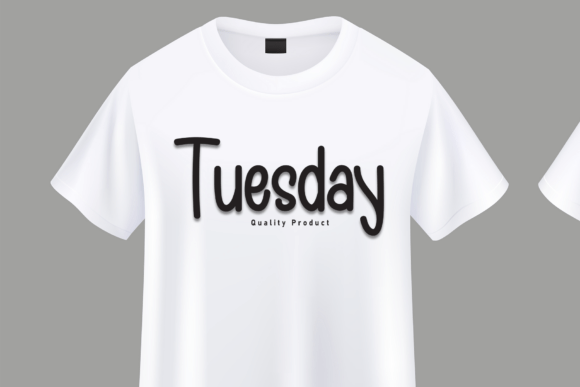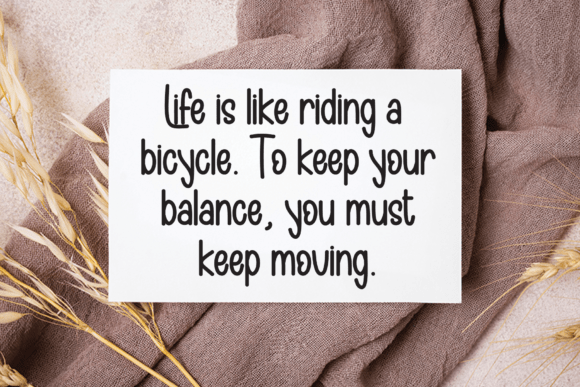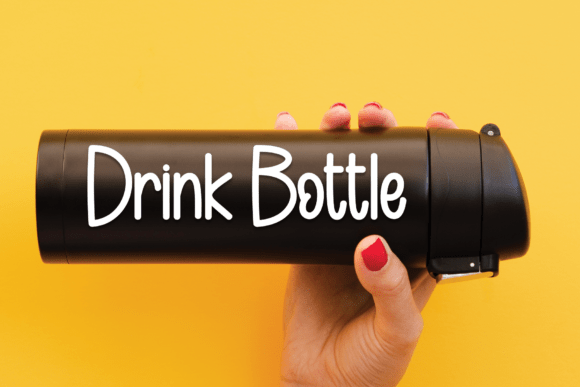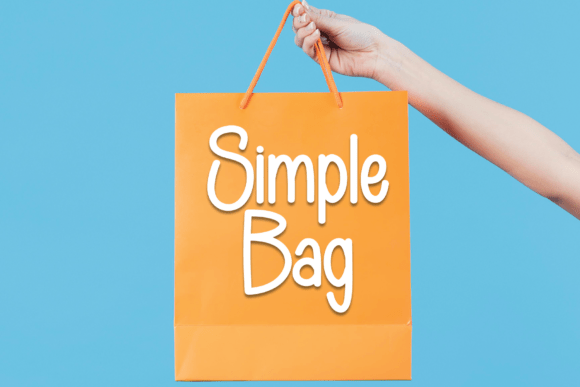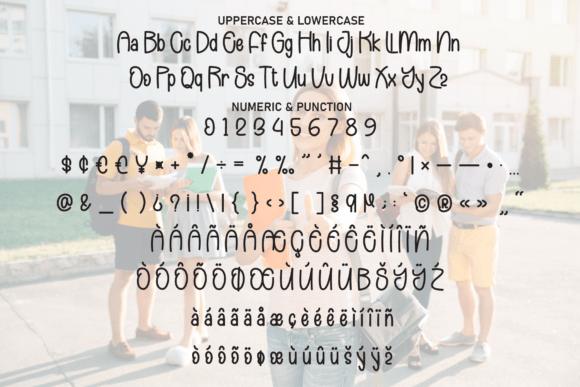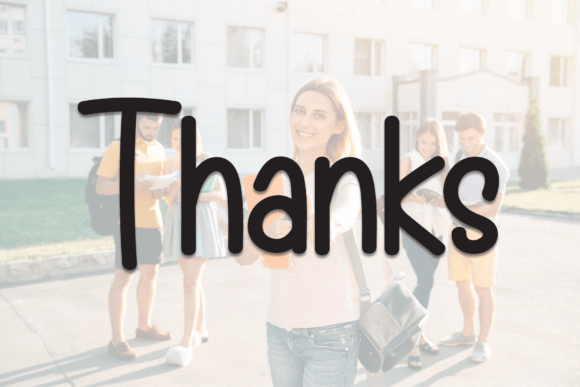
Introduction to Golden Varsity Font Font
Fonts play a crucial role in design, and the Golden Varsity Font font is a typeface that brings both character and versatility to any project. Whether you’re working on a branding project, a website, or a print design, the Golden Varsity Font font offers a unique style that can elevate your work.
Golden Varsity is a casual and neat display font that radiates a fresh, friendly vibe.
With clean lines and a relaxed structure, itβs perfect for packaging, posters, and social media graphics The approachable design adds charm and clarity to projects while maintaining a polished appearance.
Key Features of Golden Varsity Font Font
Why Choose Golden Varsity Font Font?
The Golden Varsity Font font is more than just a typeface β it’s a design tool that helps you communicate your message with style and clarity. Its unique character set and versatile design make it suitable for a wide range of applications, from elegant invitations to bold headlines.
With its carefully crafted letterforms and balanced proportions, the Golden Varsity Font font ensures readability and visual appeal across all mediums.
What makes Golden Varsity Font font special?
The Golden Varsity Font font stands out with its unique design, exceptional readability, and versatility across various design applications.